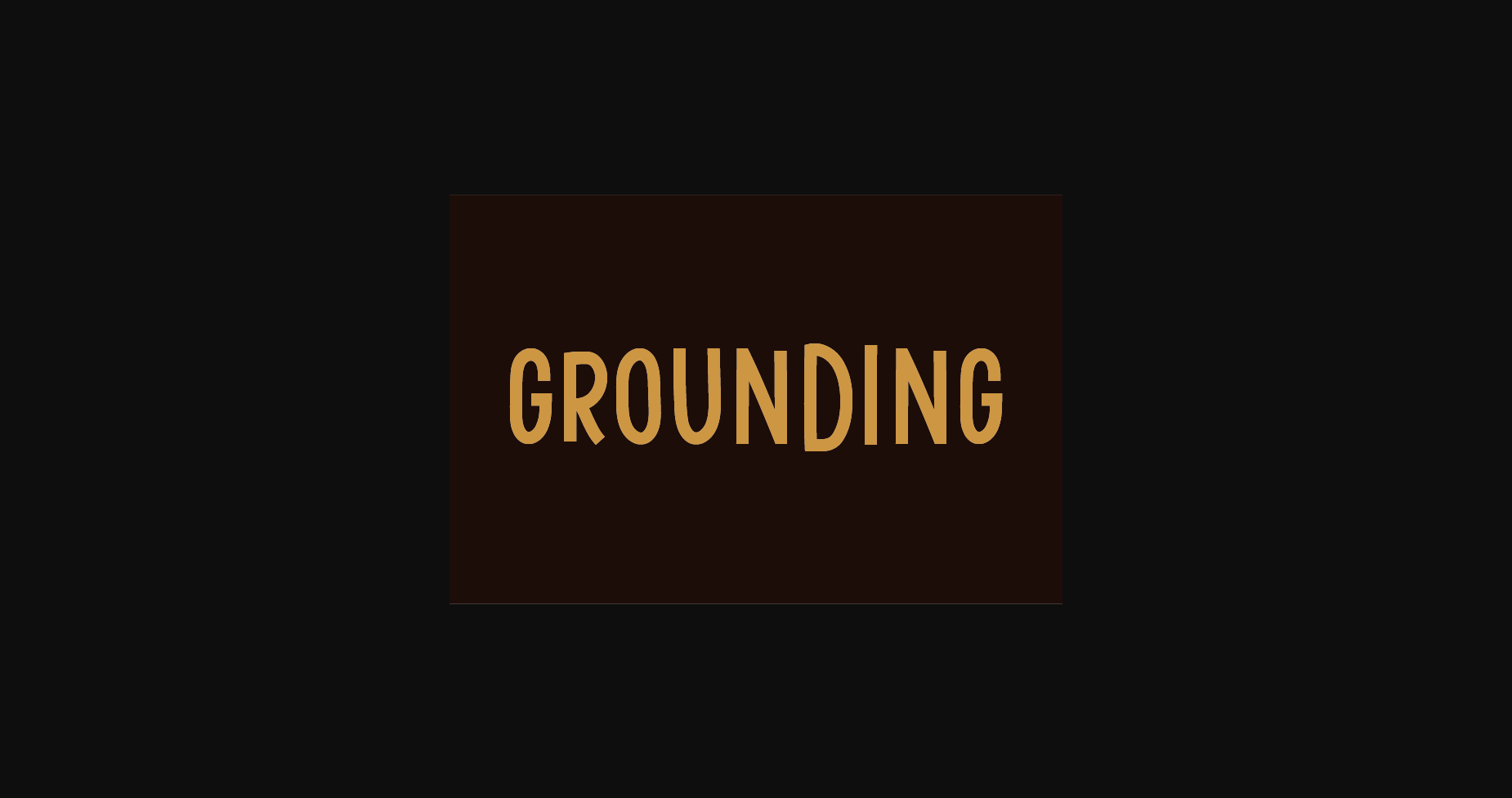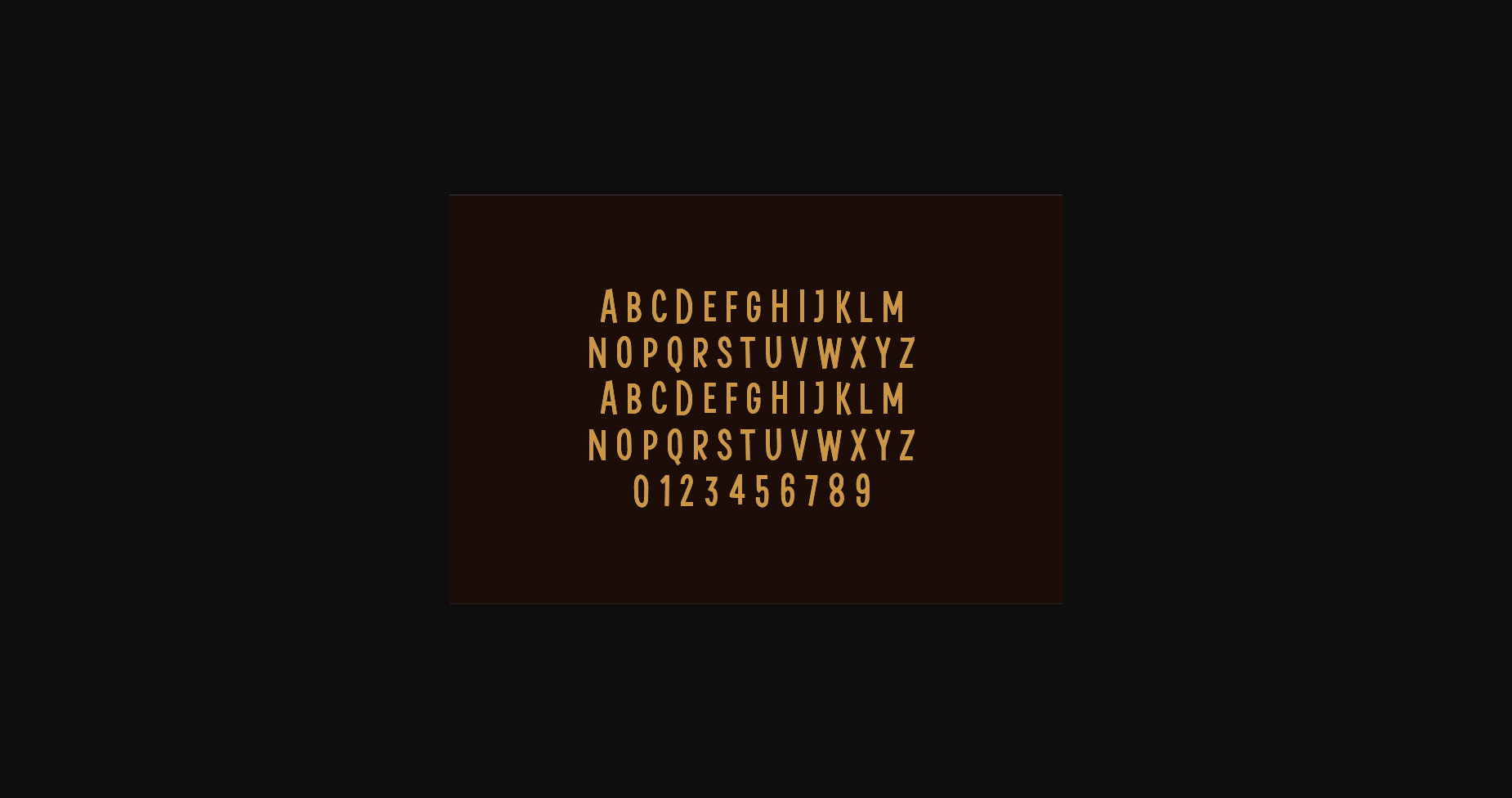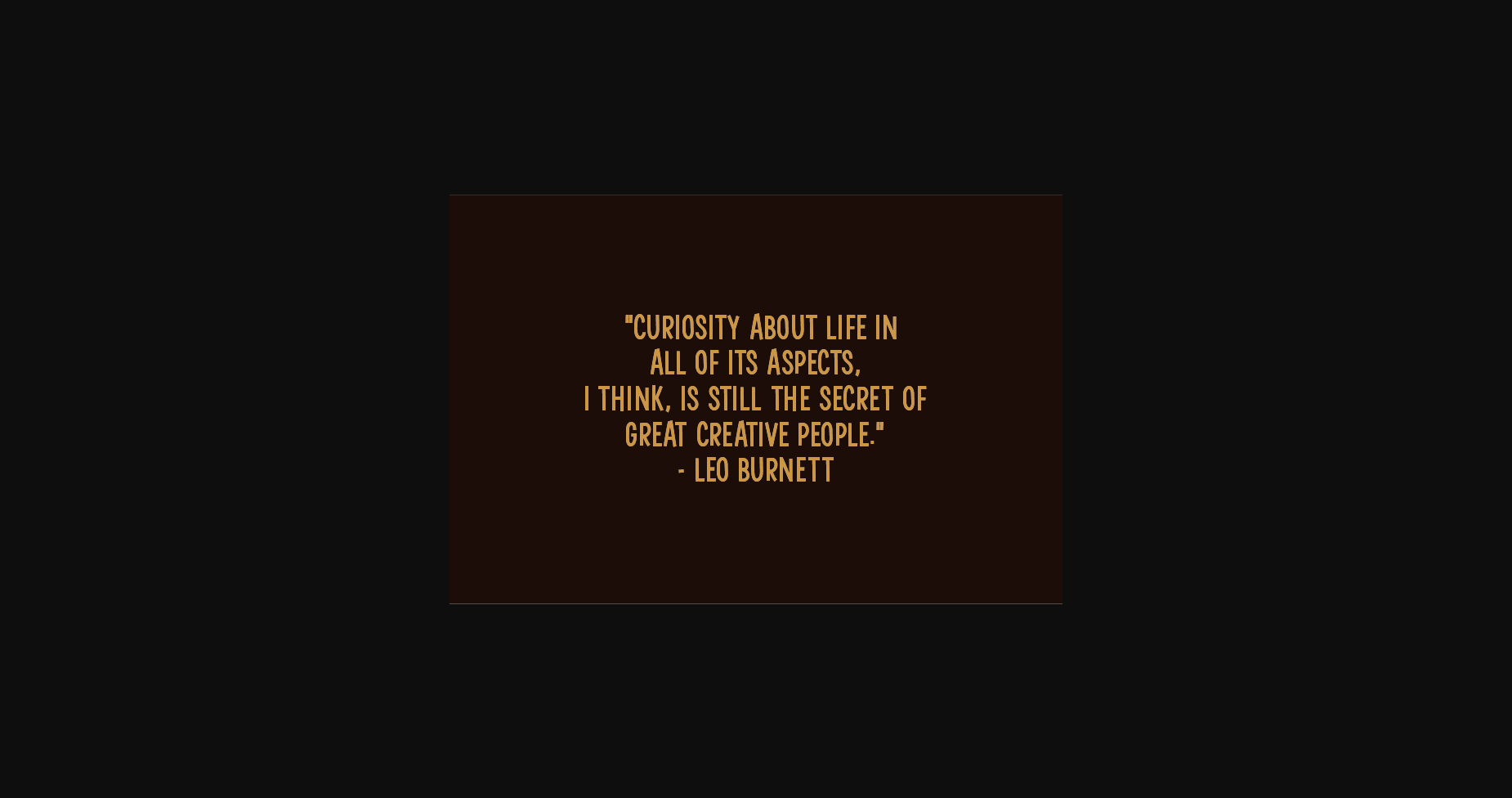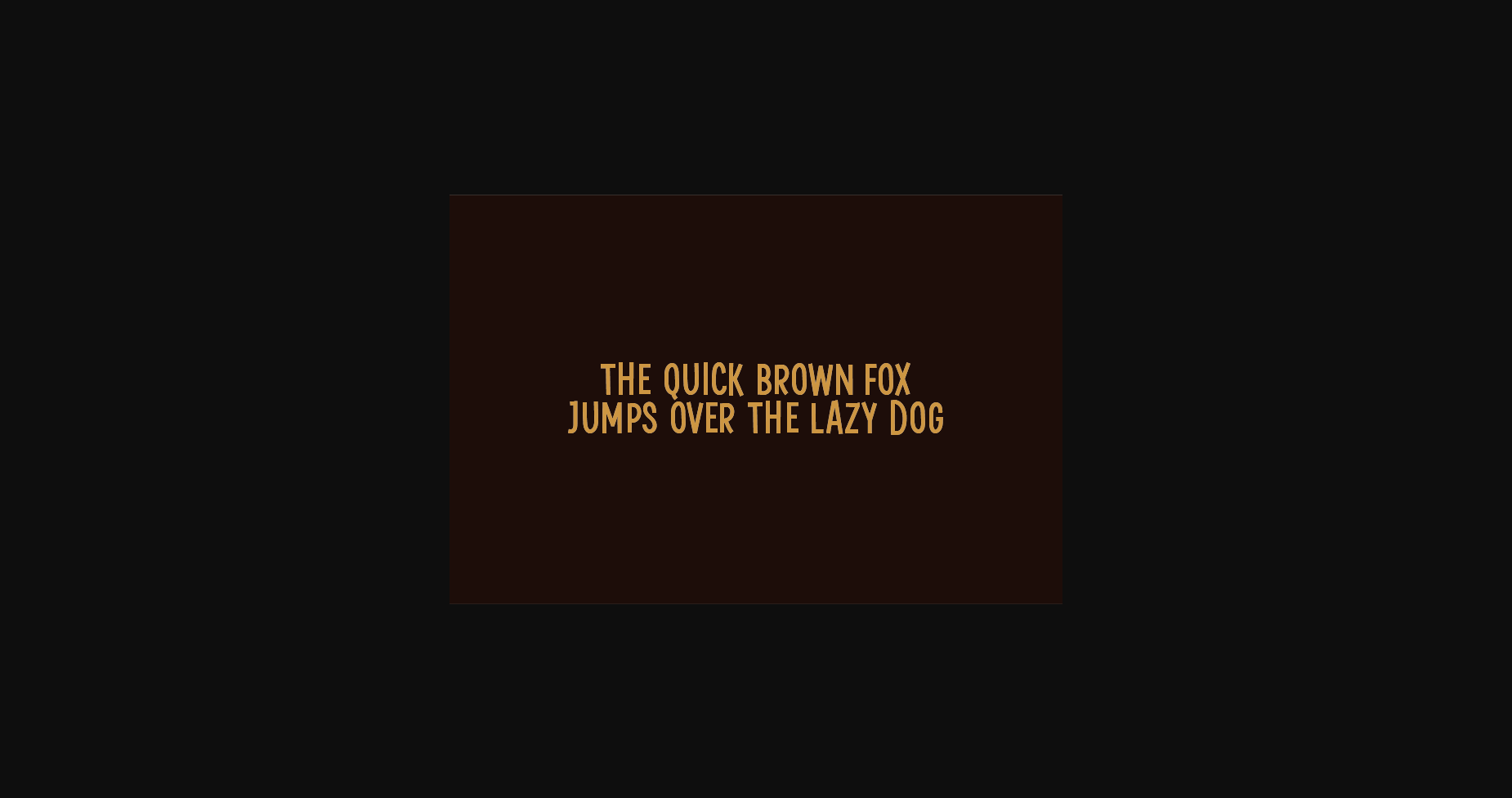
Grounding Font
About Grounding Font
Grounding is an interesting and unique sans serif font perfect for quotes, notes, T-shirts, and many more. Fall in love with its incredibly versatile style, and use it to create spectacular designs!